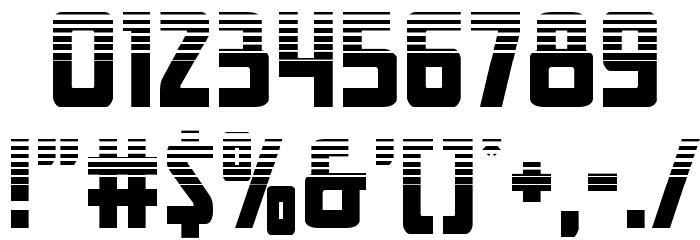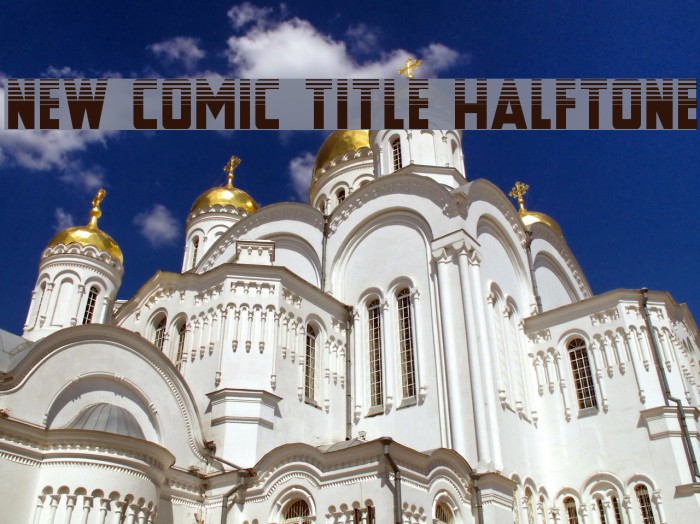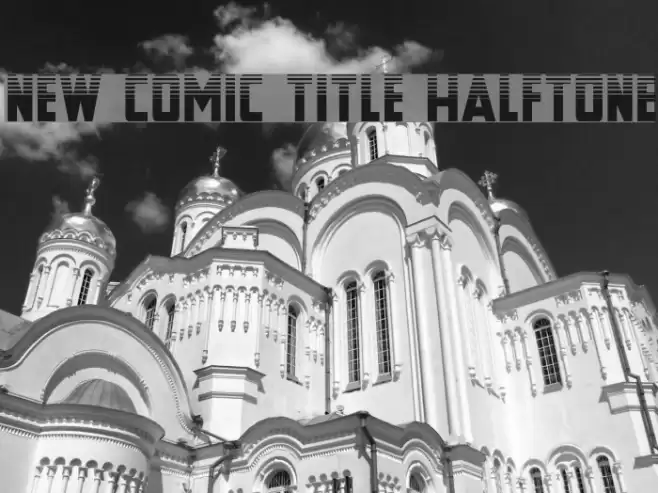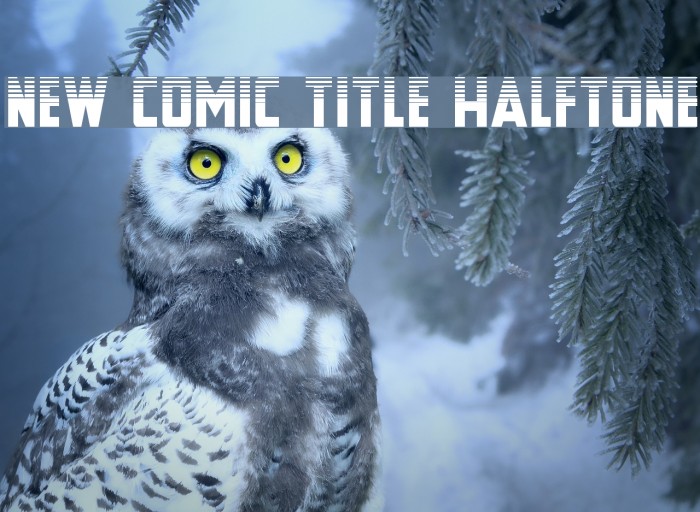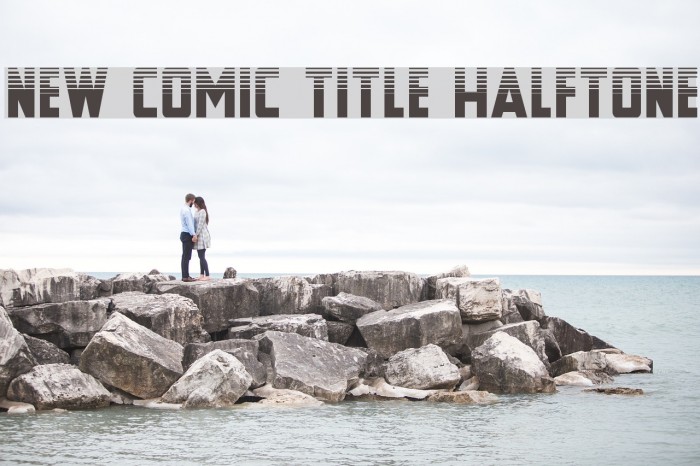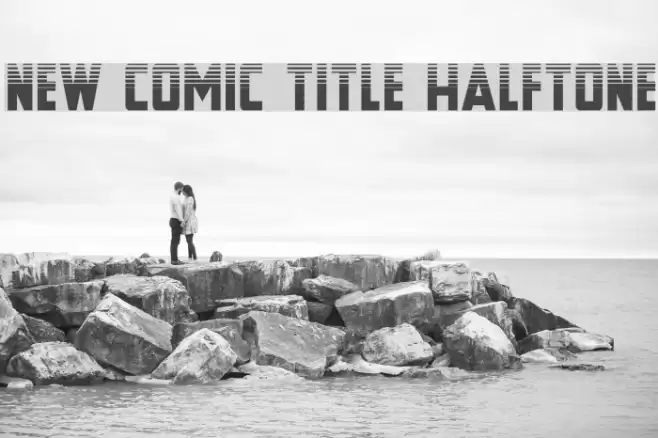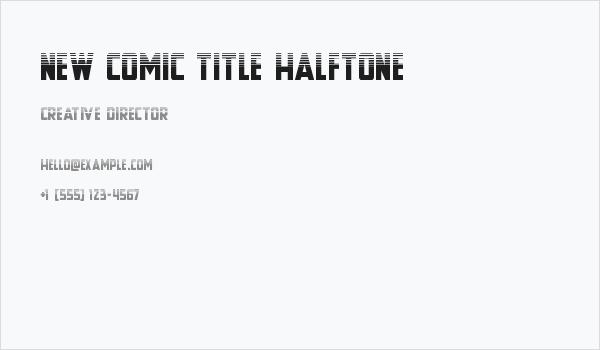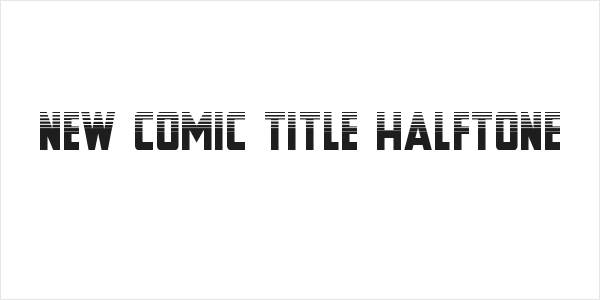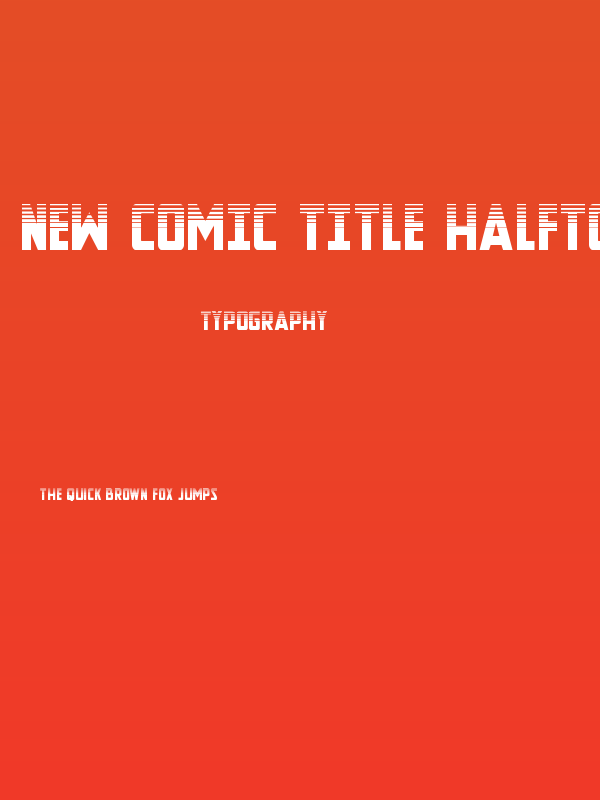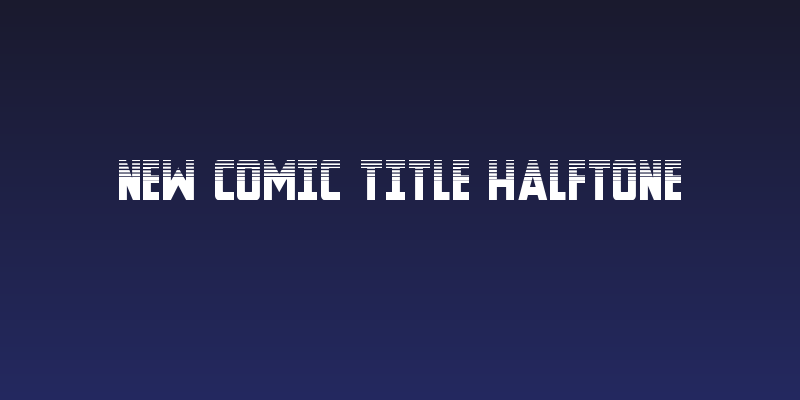
New Comic Title Halftone Font
New Comic Title Halftone Description
This font features a bold and striking design with a halftone effect that gives it a unique, comic-inspired appearance. The uppercase letters are characterized by a solid, blocky structure with horizontal lines that create a sense of movement and energy. The numbers and special characters follow the same stylistic approach, ensuring consistency across all glyphs. This font is perfect for projects that require a dynamic and eye-catching typeface, such as comic book titles, posters, and graphic novels. Its boldness and distinctive style make it stand out, while the halftone effect adds a layer of visual interest.
| Proposed Projects | Ideal for comic book titles, posters, graphic novels, and any project needing a bold, dynamic typeface. |